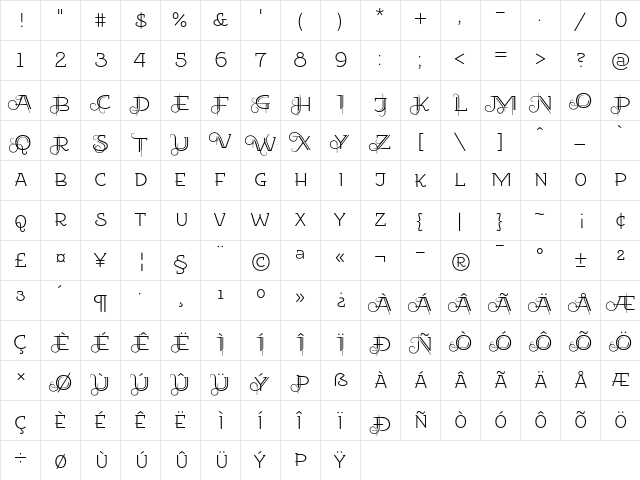
EtharnigNo12 Medium
| Designer | gluk |
EtharnigNo12 offers clean, dependable letterforms without strong stylistic allegiance, making it a practical choice for designers who need flexibility.